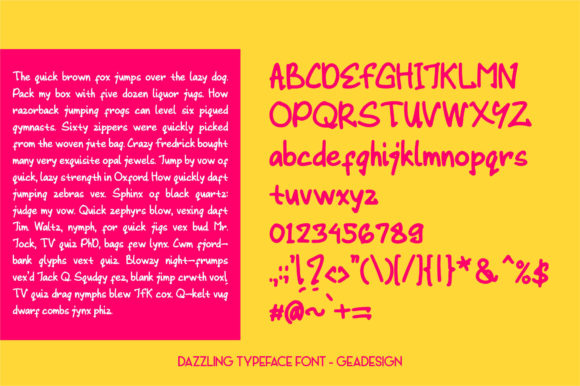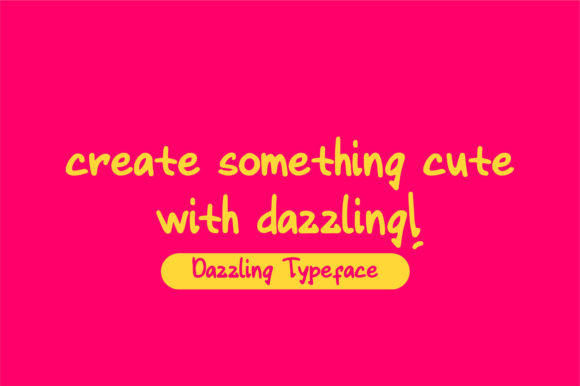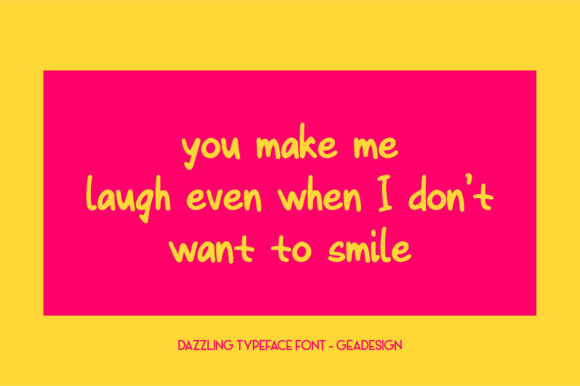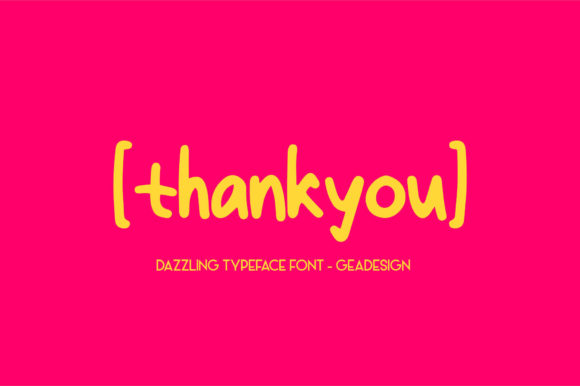
Dazzling Font: Elevate Your Designs with a Unique Typeface
In the world of design, typography plays a crucial role in conveying messages, evoking emotions, and creating visual identities. With countless font options available, finding the perfect typeface that sets your project apart can be a daunting task. However, if you’re looking for a font that shines bright, look no further than Dazzling Font. This stunning typeface is designed to add a fresh spin to timeless design principles, making it an excellent choice for designers and crafters seeking to create something truly remarkable.
The Essence of Dazzling Font
Dazzling Font is a unique typeface that boasts a distinctive feel, setting it apart from more traditional fonts. Its creators have skillfully blended classic design elements with modern flair, resulting in a font that exudes sophistication, elegance, and playfulness. Whether you’re working on a branding project, crafting a logo, or designing a website, Dazzling Font is sure to make your work stand out from the crowd.
Key Features of Dazzling Font
- Unique Character: Dazzling Font features a one-of-a-kind design that adds a touch of personality to any project.
- Timeless Appeal: Despite its modern twist, the font retains a timeless quality that ensures it won’t go out of style anytime soon.
- Versatility: Dazzling Font can be used for a wide range of applications, from digital designs to print materials.
- Ease of Use: The font is easy to read and works well in various sizes, making it perfect for body text, headings, and titles.
Who Can Benefit from Dazzling Font?
Dazzling Font is an excellent addition to any designer’s toolkit, regardless of their specialization. Here are a few groups that can particularly benefit from this stunning typeface:
- Graphic Designers: Those working on branding, logos, and marketing materials will love the font’s unique flair and versatility.
- Web Designers: Dazzling Font can add a touch of elegance and sophistication to websites, making it perfect for projects that require a bit of personality.
- Crafters and Makers: Whether you’re creating handmade cards, scrapbooking, or working on other craft projects, Dazzling Font can help you add a professional touch.
Tips for Using Dazzling Font Effectively
To get the most out of Dazzling Font, consider the following tips:
- Pair it with Neutrals: Combine Dazzling Font with neutral fonts to create contrast and make your text stand out.
- Experiment with Sizes: Play around with different font sizes to create visual hierarchy and add emphasis to key messages.
- Use it Sparingly: While Dazzling Font is stunning, using it sparingly can make it more impactful. Reserve it for headings, titles, or key phrases.
Dazzling Font is more than just a typeface – it’s a design statement. With its unique feel, timeless appeal, and versatility, it’s an excellent choice for designers and crafters looking to elevate their projects. Whether you’re working on a personal project or a client’s brief, Dazzling Font is sure to make your work shine. So why settle for ordinary when you can dazzle your audience with this extraordinary font?